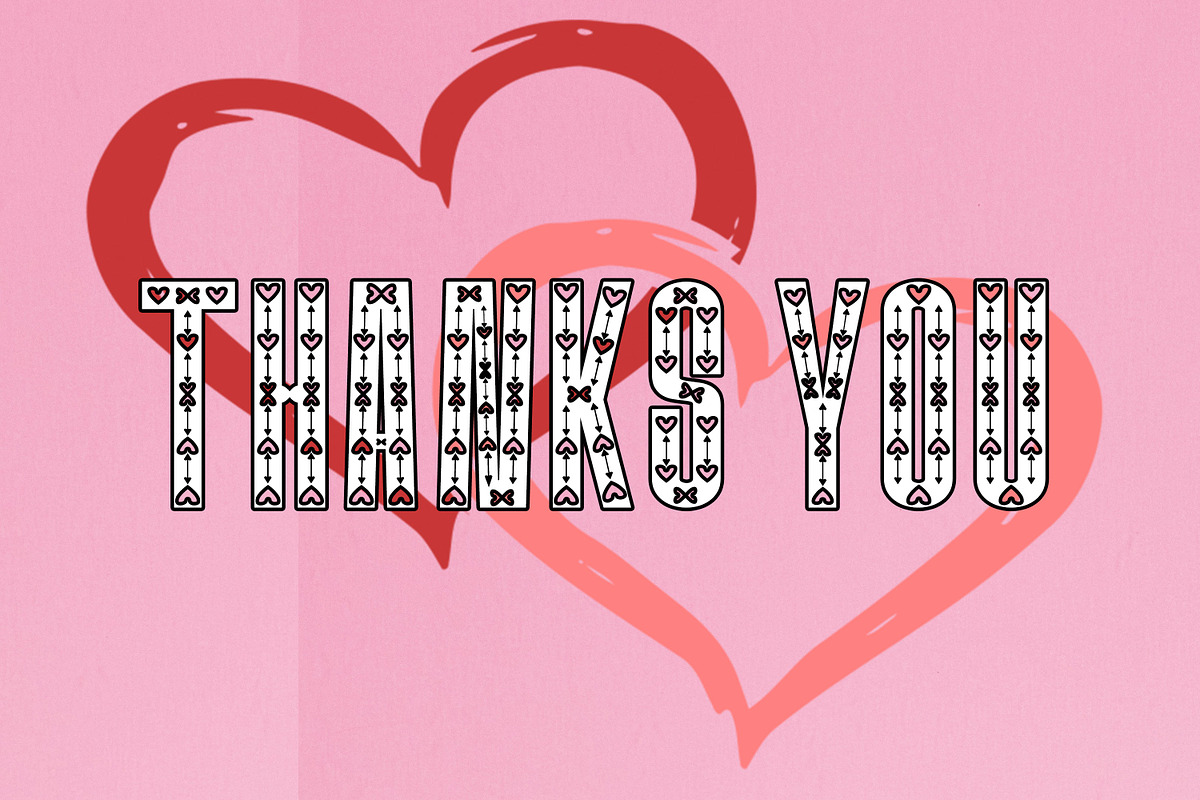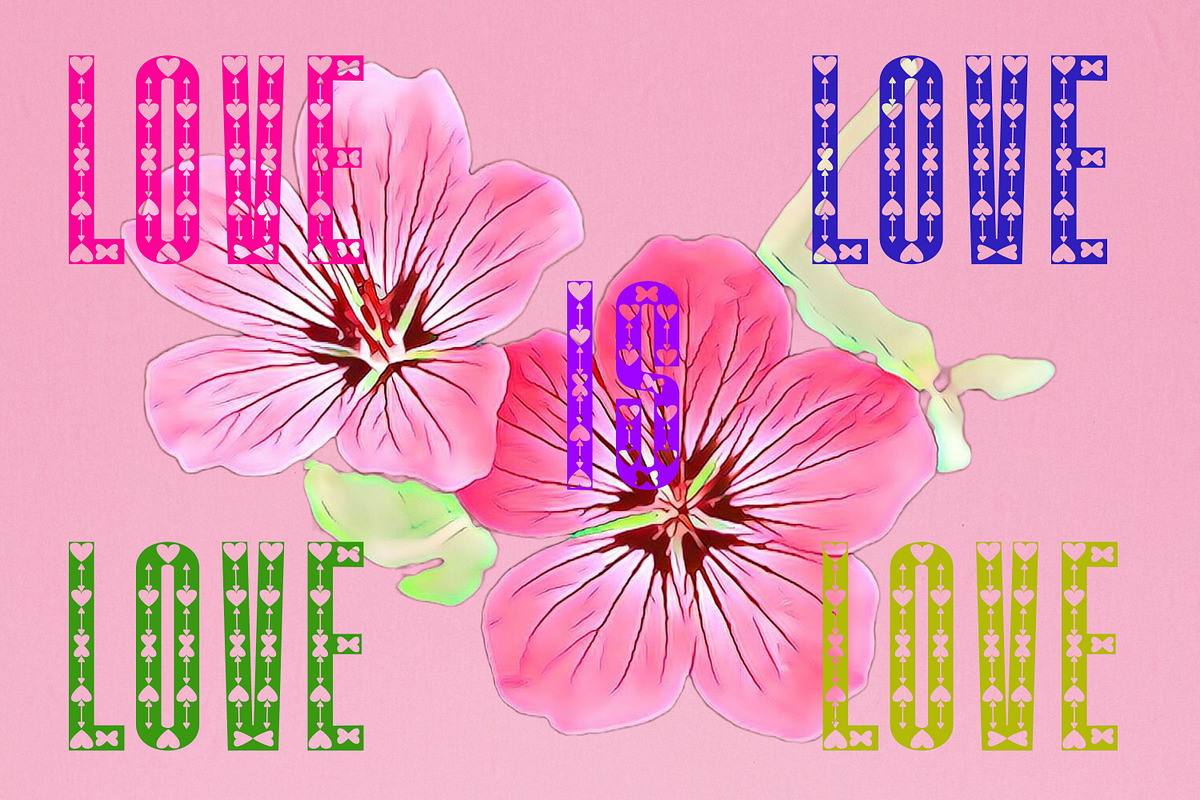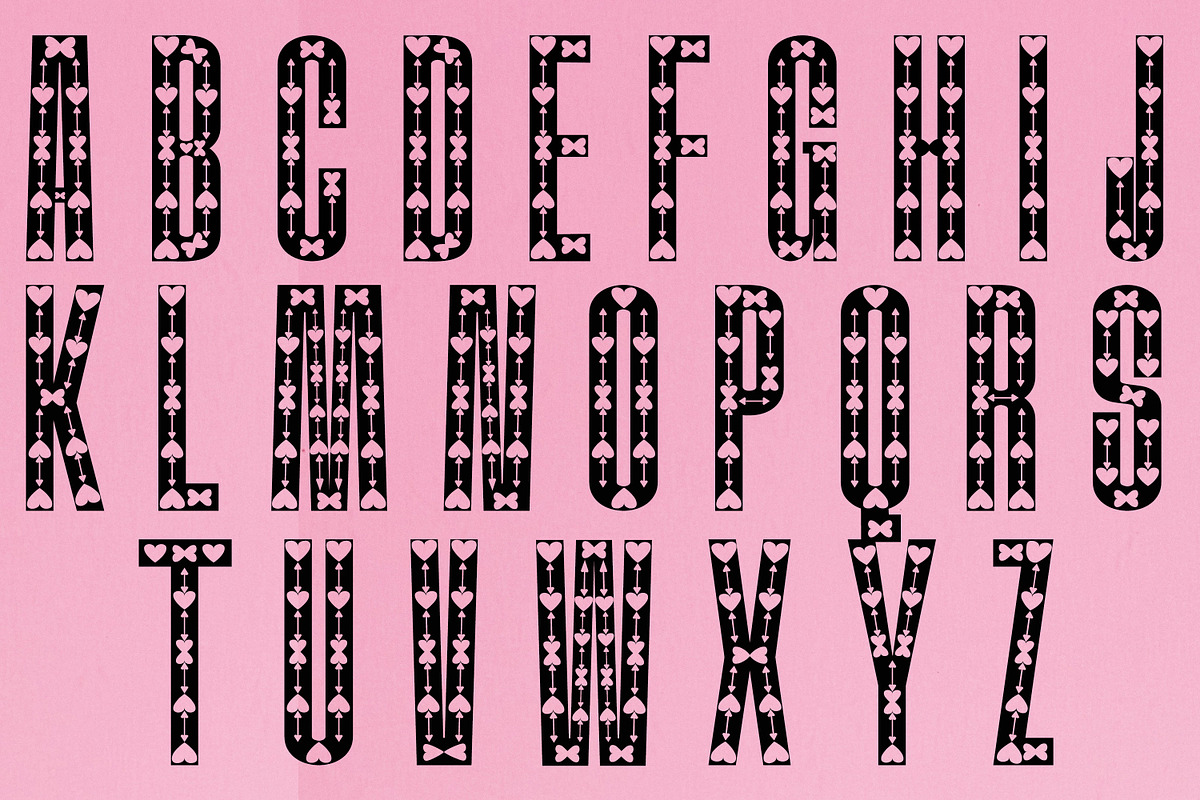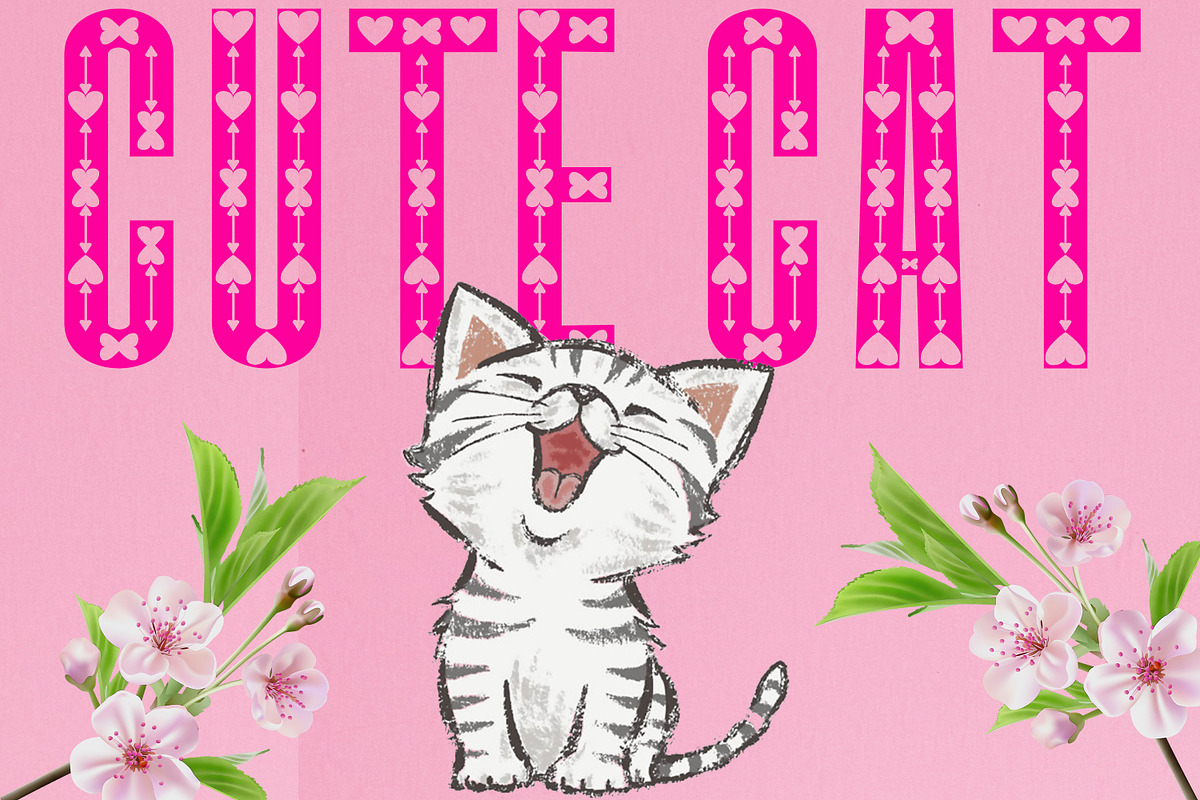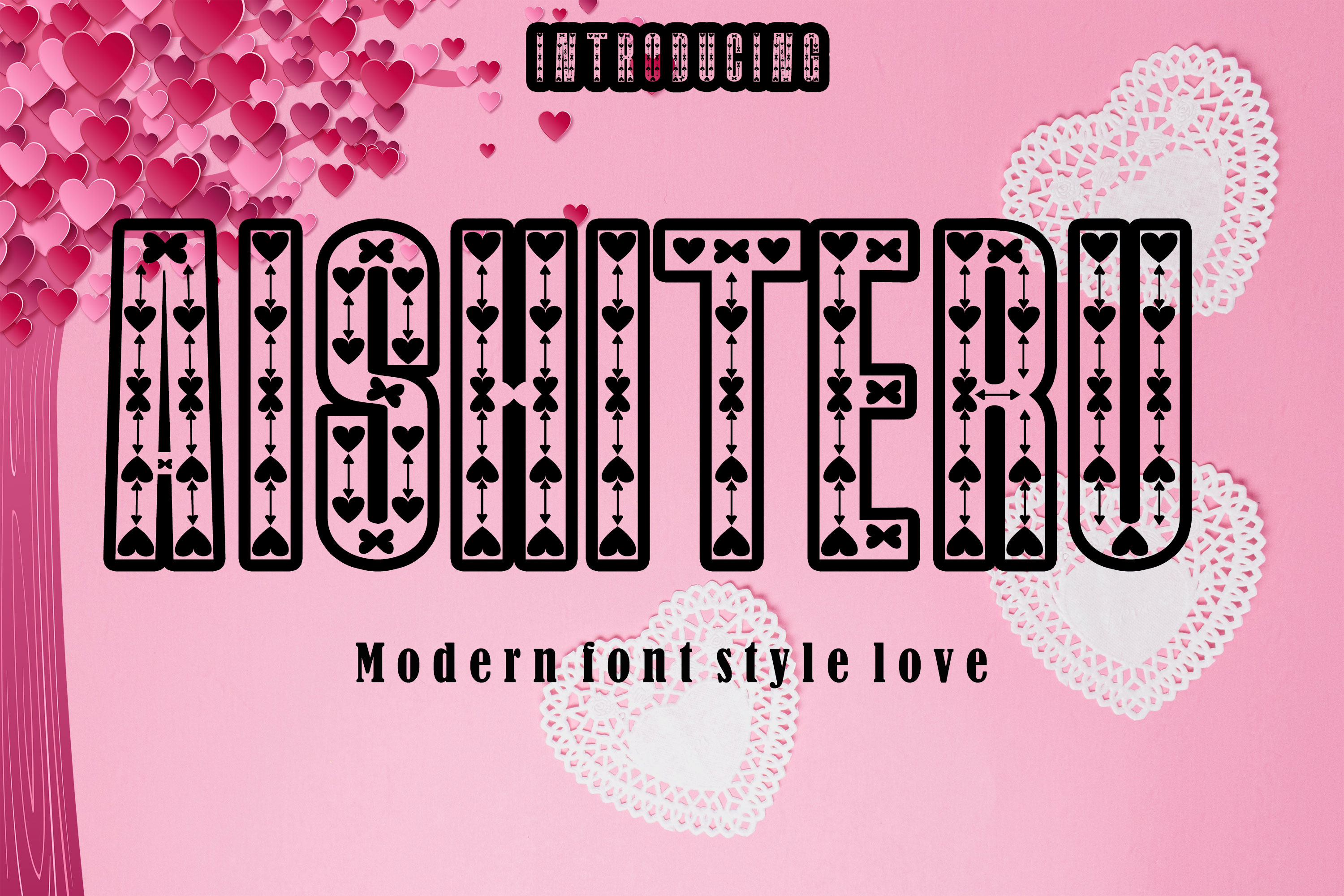
Aishiteru modern font love
Aishiteru is a simple, minimalist and neat Modern font. It can be easily adapted to a wide variety of projects, such as advertising, titles, blogs, logos, branding, invitations, business cards and more! So add it to your creative ideas and see how it makes it stand out! This font comes with a file. OTF, TTF, WOFF and also used in various languages. You will not be disappointed with the results.